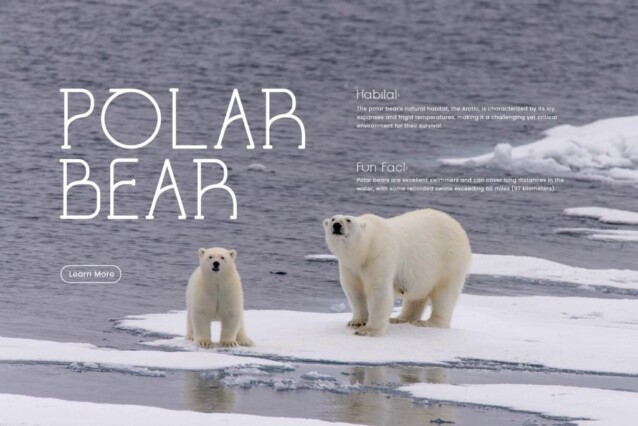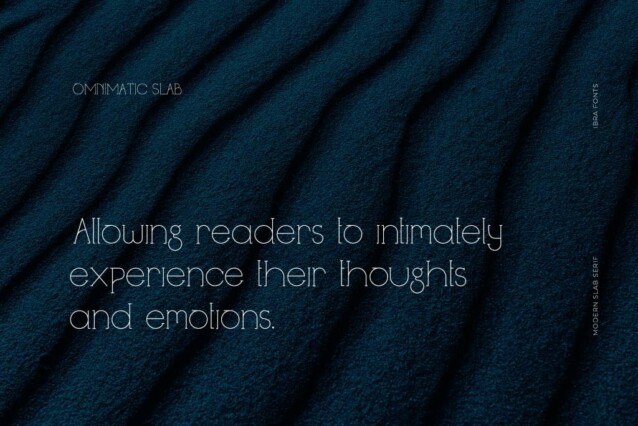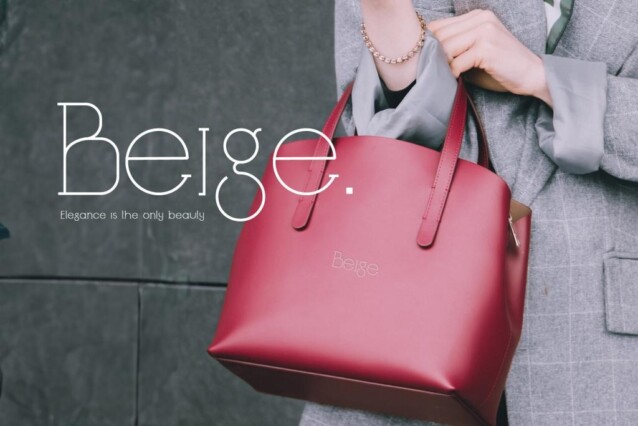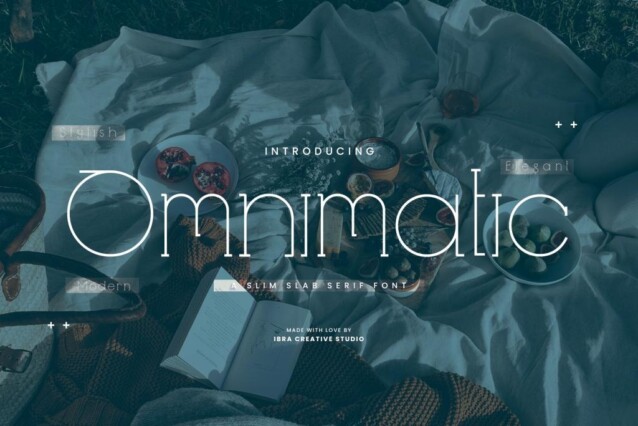
Omnimatic Font
Omnimatic Font is a thin and playful slab-serif font that adds a captivating and energetic touch to your designs. With its slender letterforms and distinctive serifs, this typeface exudes a sense of contemporary elegance, making it a versatile choice for various design applications. Omnimatic strikes the perfect balance between minimalism and character, ensuring that it remains both aesthetically pleasing and highly legible, making it an excellent choice for projects that require a touch of refined style while maintaining readability. Whether used for headlines, body text, or branding, Omnimatic’s clean lines and unique serifs make it an ideal font choice for designers seeking a sophisticated yet approachable typographic solution.